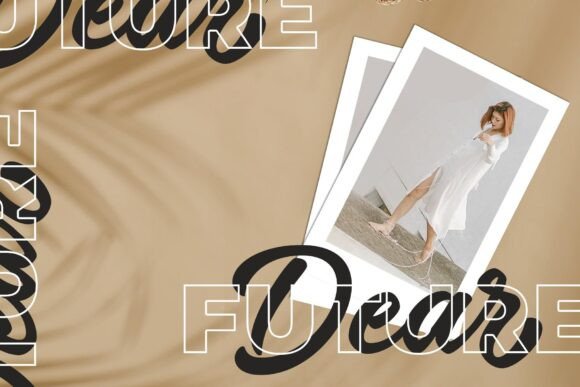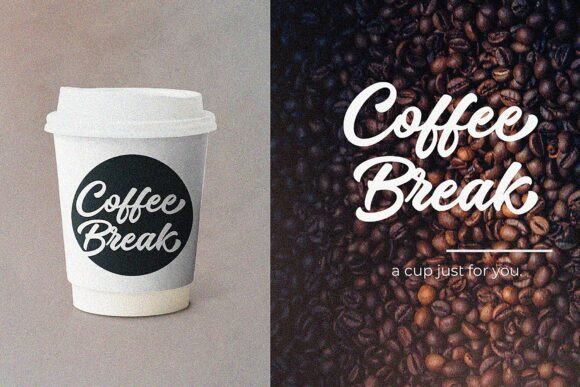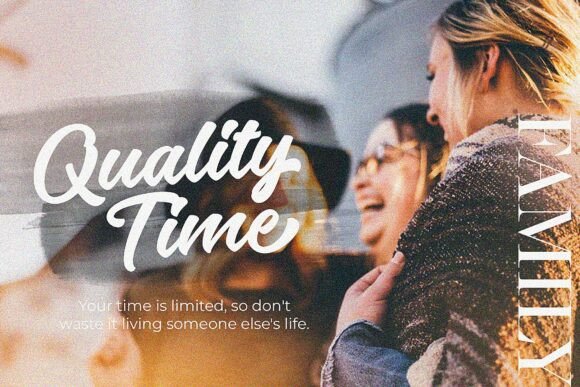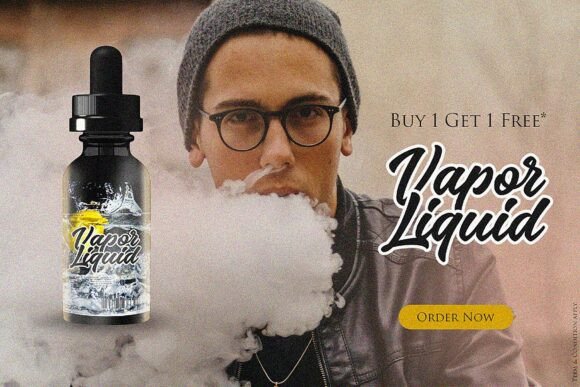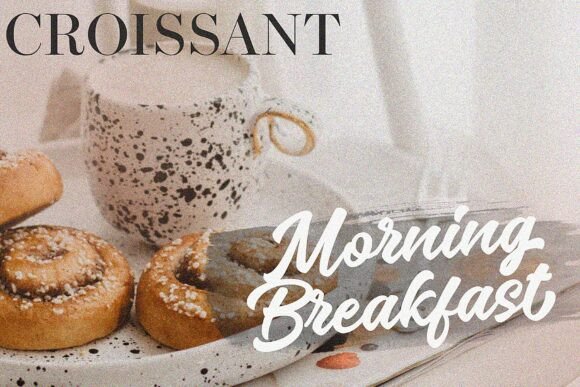
Introduction to Lumpia Font
Have you ever found yourself staring at a blank page, wondering how to bring your creative vision to life? It’s a familiar feeling for many designers, but the right tools can make all the difference. That’s where the Lumpia Font comes in – a beautiful hand-lettering brush script font that’s perfect for adding a touch of personality to your designs.
Whether you’re working on a logo, printed quote, or invitation, the Lumpia Font is an invaluable resource that will help you take your creative project to the next level. With its natural nuance and high-quality design, this font is a must-have for any designer looking to add a unique touch to their work. And the best part? It’s available for free download, complete with transparent background and a range of OpenType features to help you customize your designs.
So why settle for a generic font when you can add a little bit of Lumpia magic to your design? In this article, we’ll take a closer look at the features and benefits of the Lumpia Font, and explore some of the amazing ways you can use it to elevate your creative projects.
Lumpia Font
- High-quality, professional font ideal for creative projects
- Perfect for use in graphic design, digital art, and publishing projects
- Unique characteristics include elegant lines and precise typography
- Designed to be a valuable design resource for creative professionals
Honest Review: Lumpia Font
I recently stumbled upon the Lumpia Font, and I’m excited to share my honest review with fellow designers. This font has been a game-changer for my creative project, providing a unique touch that elevates my designs to the next level.
What works well about the Lumpia Font is its high quality and versatility. It’s perfect for a wide range of design projects, from digital graphics to print materials. The transparent background allows for seamless integration with other design elements, making it a valuable addition to my design resource library.
- ✨ Unique and stylish design
- ✨ High-quality font suitable for various design projects
However, there are a few limitations to consider. The font may not be suitable for all design styles, and some users may find it too bold or eye-catching. Additionally, the free download version may have some limitations, such as restricted use or a watermark.
Overall, I’m impressed with the Lumpia Font and would highly recommend it to fellow designers. While it may not be perfect, its unique design and high-quality features make it a valuable addition to any design resource library. Whether you’re working on a creative project or just looking for a new font to try, the Lumpia Font is definitely worth checking out.
Lumpia Font
Lumpia Font is a high-quality design resource perfect for creative projects that require a unique and stylish touch. This free download is available for personal and commercial use, making it an excellent addition to any design arsenal.
Tips for Getting the Most Out of Lumpia Font
For the best results, use Lumpia Font on a transparent background to create a seamless and modern look. Experiment with different font sizes and colors to add depth and interest to your design.
Lumpia Font is perfect for a variety of creative projects, including:
- Branding and identity design
- Social media graphics and advertising
- Print design and packaging
Alternatives to Lumpia Font
1. Jumbo Font
Jumbo Font is a high-quality, bold font ideal for creative projects requiring attention-grabbing headlines. Its transparent background allows for seamless integration with various design resources. Use Jumbo Font for eye-catching titles, labels, and other design elements where a strong visual impact is desired.
Compared to Lumpia Font, Jumbo Font has a more dramatic appearance, making it suitable for projects that need a bold statement. While Lumpia Font is versatile, Jumbo Font excels at grabbing attention.